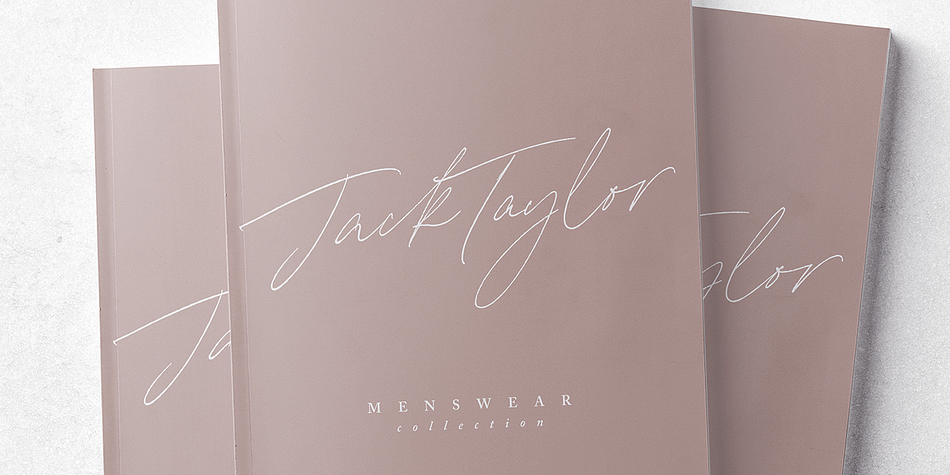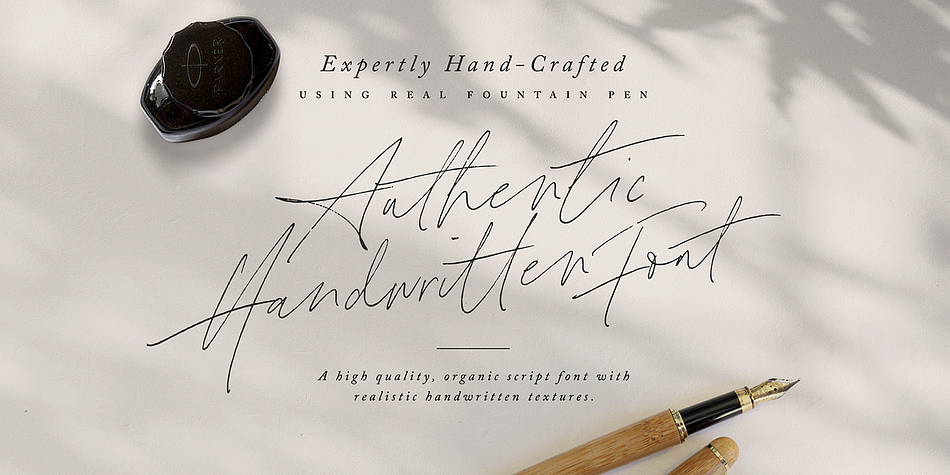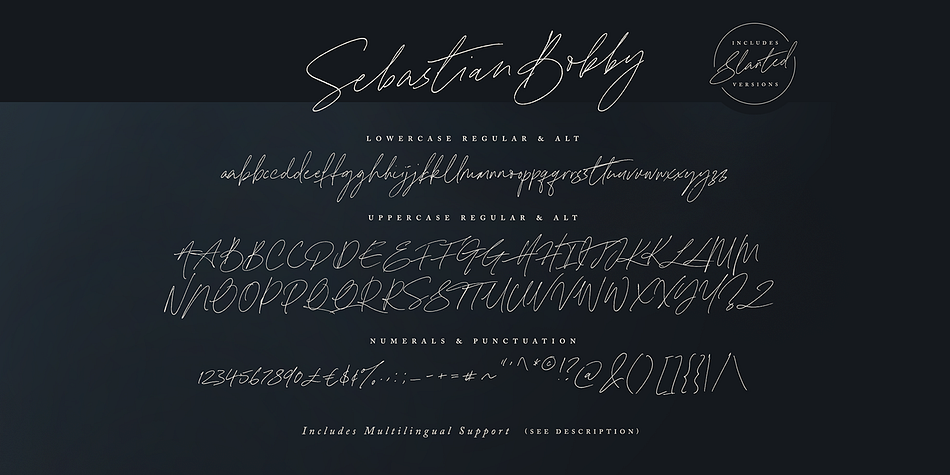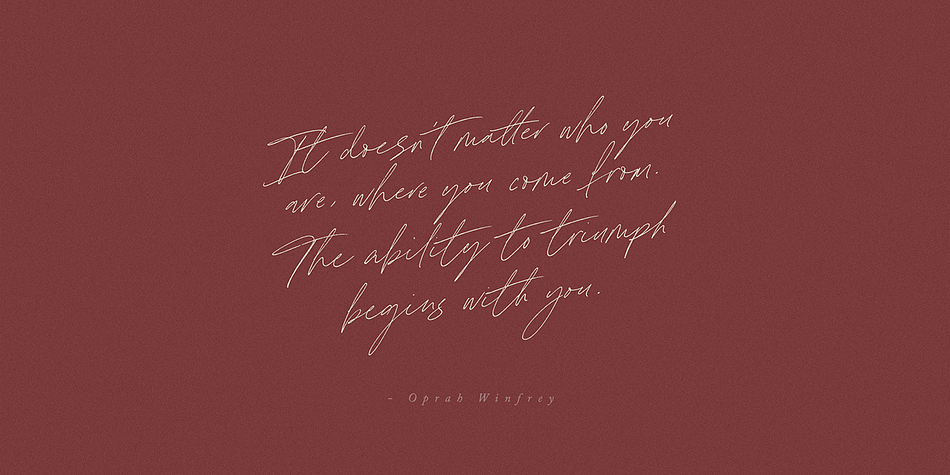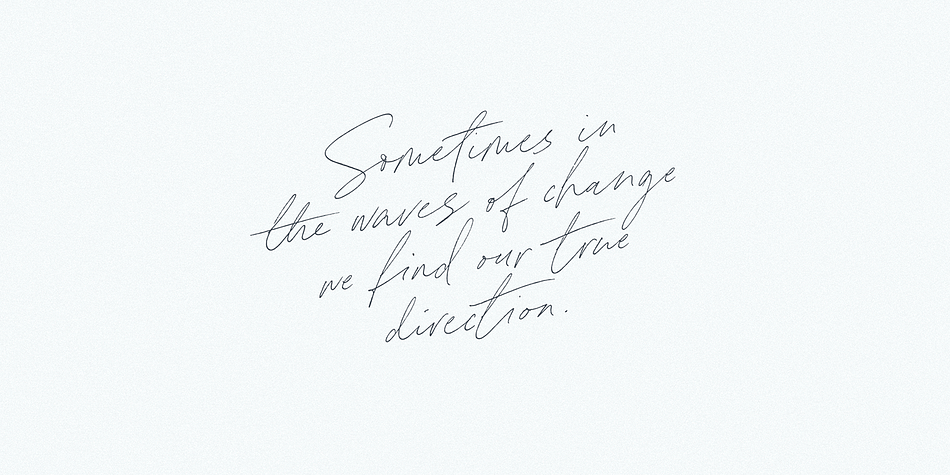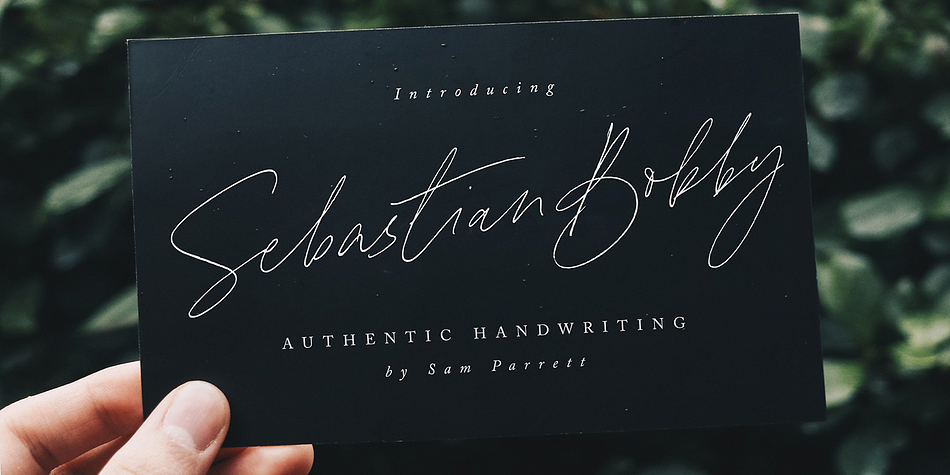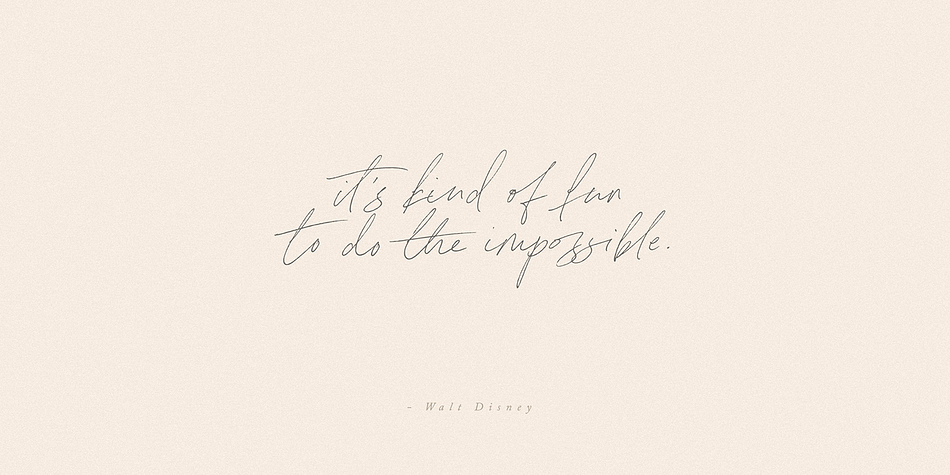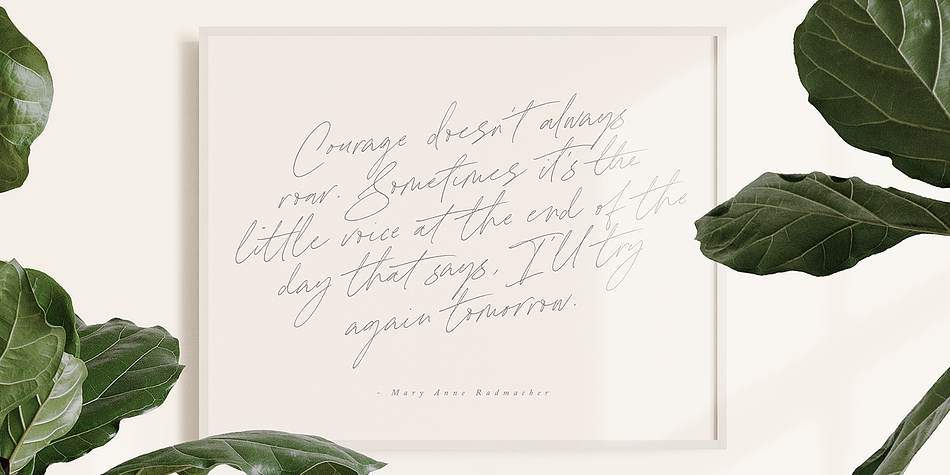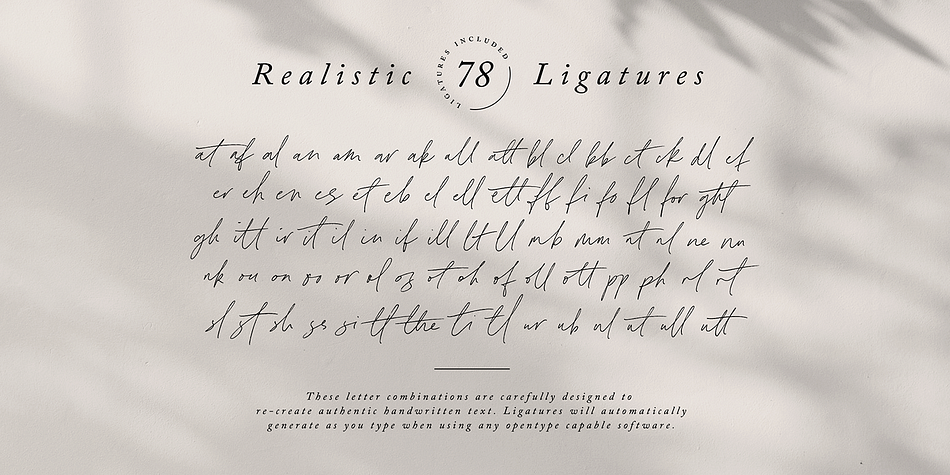
Designed by Sam Parrett, Sebastian Bobby is a script font family. This typeface has four styles and was published by Set Sail Studios.
Introducing Sebastian Bobby; An authentic & organic hand-drawn script font, crafted using a real fountain pen. This font has been carefully designed to re-create natural handwritten text, and includes 78 custom ligatures to achieve those free flowing pen strokes. Sebastian Bobby lends itself perfectly to handwritten quotes, signature-style logos, stylish branding projects, and hand-crafted product & stationery designs.
This family consists of 4 fonts;
Sebastian Bobby • A handwritten script font containing upper & lowercase characters, numerals, and a large range of punctuation.
Sebastian Bobby Alt • This is a second version of Sebastian Bobby, with a completely new set of both upper and lowercase characters. If you wanted to avoid letters looking the same each time to recreate a custom-made style, or try a different word shape, simply switch to this font for an additional layout option.
Slanted Versions • Are available for both regular and alternate fonts. These can be used for a more italicised, fast-hand flow to your text.